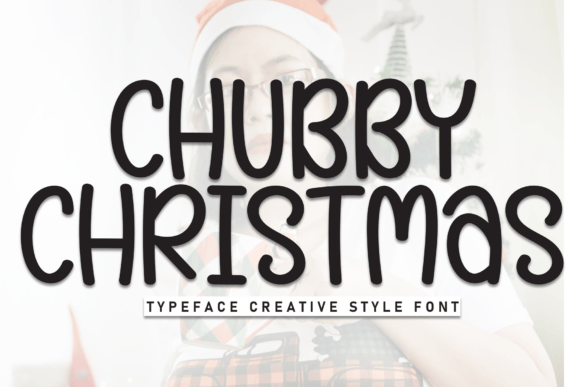
Getting Cozy with the Chubby Christmas Font
It’s that time of the year again – the season of sparkles, twinkling lights, and cozy vibes. You’re browsing through Pinterest, scrolling through your favorite design boards, and suddenly, you stumble upon the perfect Christmas card idea. The combination of bold colors, playful patterns, and heartfelt messages is everything you need to make your loved ones feel special. But, what really catches your eye is the beautiful, handwritten font that perfectly complements the design.
That’s where the Chubby Christmas Font comes in – a sweet and friendly handwritten font that’s perfect for adding a personal touch to your holiday projects. This natural and unique style is incredibly versatile, making it a valuable addition to any designer’s toolkit. With the Chubby Christmas Font, you can bring your festive designs to life and make them truly unforgettable.
Key Features of Chubby Christmas Font
- Font Family: Chubby Christmas Font is a custom-designed font family, perfect for festive and fun applications.
- Unique Characteristics: Features a playful, chubby style with bold and rounded letterforms, ideal for creating eye-catching holiday graphics and designs.
Chubby Christmas Font Review
I recently had the chance to work with the “Chubby Christmas Font”, and I must say it’s a unique addition to any holiday-themed design project. Here are my thoughts:
- The font’s playful and whimsical feel is perfect for creating a festive atmosphere.
- The thick lines and rounded shapes make it easily readable, even at smaller font sizes.
- The font’s versatility allows it to be used in a variety of design contexts, from signage to print materials.
- The font may not be suitable for more formal or elegant designs, as its playful nature may come across as too casual.
- The font’s weight and style may not be ideal for smaller text or body copy, as it may be too busy or distracting.
The “Chubby Christmas Font” is a fun and creative addition to any holiday design project. While it may have some limitations, its unique style and versatility make it a great choice for designers looking to add a playful touch to their work. I would recommend it for projects that require a festive and whimsical feel, but may not be the best choice for more formal or serious designs.
Tips: Use the Chubby Christmas Font for festive titles, headings, and quotes to add a playful touch to your designs.
Tips: Use the Chubby Christmas Font for custom holiday cards, invitations, and graphics to add a unique touch.
Tips: Use the Chubby Christmas Font for festive titles, headings, and quotes to add a playful touch to your presentations and documents.
The Chubby Christmas Font is perfect for:
• Holiday cards and invitations
• Custom gift tags and labels
• Social media graphics and posts
• Party decorations and signs
Alternatives to Chubby Christmas Font for Designers
Bebas Neue is a modern sans-serif font with a playful, festive feel. It’s perfect for designers who want to create a fun and energetic atmosphere without the overtly “chubby” feel of Chubby Christmas Font. Bebas Neue has a more minimalist design, making it ideal for use in logos, headings, and titles.
Comparison: Bebas Neue is more versatile and can be used in a variety of design contexts, whereas Chubby Christmas Font is more suited for specific holiday-themed designs. Bebas Neue also has a more modern feel, whereas Chubby Christmas Font has a more retro aesthetic.
Playfair Display is a luxurious, elegant script font that’s perfect for adding a touch of sophistication to holiday designs. It’s ideal for use in titles, headings, and other prominent text elements. Playfair Display has a more refined and sophisticated feel compared to Chubby Christmas Font, making it perfect for high-end branding and marketing materials.